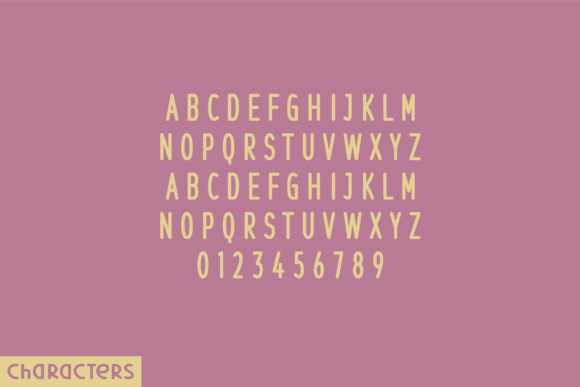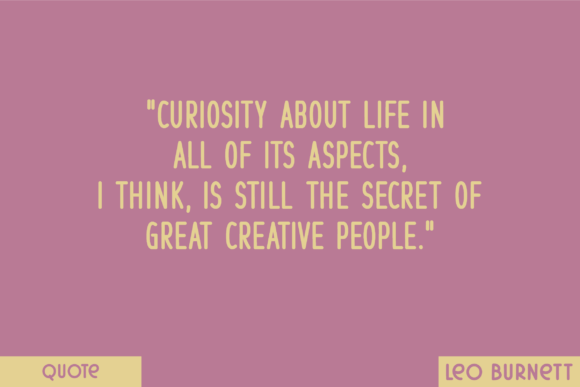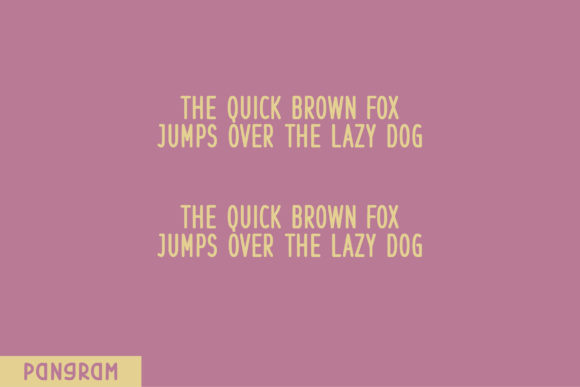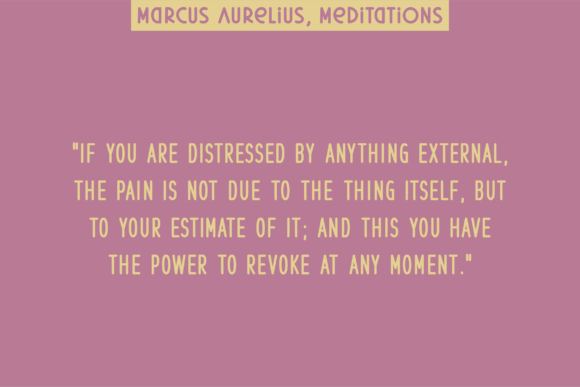
Introduction to Limonora Font
As designers, we’ve all been there – staring at a blank canvas, trying to convey the essence of a brand or idea in a few, carefully chosen words. But sometimes, the perfect font can be the difference between a bland, forgettable design and a truly show-stopping creation. That’s where the Limonora Font comes in – a beautiful, high-quality sans-serif that’s perfect for designers looking to add a touch of sophistication and personality to their work.
Whether you’re working on a craft beverage label, a boutique stationery project, or an artisanal cafe menu, the Limonora Font is a valuable design resource that’s sure to elevate your creative project. With its uniform stroke weight and tall, slender proportions, this font is ideal for narrow layouts where space is a premium, but personality is a must. And the best part? You can download it for free, giving you the freedom to experiment and push the boundaries of your design.
Key Features of Limonora Font
- High-quality, professional design ideal for creative projects and design resources.
- Designed with a unique, modern aesthetic, perfect for adding a touch of sophistication to any design project.
- Perfect for use in various creative projects, including logos, graphics, and typography, due to its versatility and flexibility.
Honest Review: Limonora Font
I recently stumbled upon the Limonora Font, and I must say it’s been a fantastic addition to my design arsenal. This high-quality font is perfect for any creative project that requires a modern and sleek look.
What works well about the Limonora Font is its versatility. It comes in a range of weights and styles, making it suitable for a variety of design needs. The font is also available for free download, which is a huge plus for designers on a budget. I appreciate that the font is offered as a free download, making it a valuable design resource for anyone working on a project.
- ✨ Suitable for a wide range of design projects, from logos to typography-based designs
- ✨ Available in multiple weights and styles for added versatility
One potential limitation of the Limonora Font is the lack of transparency options. The font is designed with a solid background, which can make it difficult to use in certain design scenarios where a transparent background is necessary. However, this is a minor drawback compared to the font’s many benefits.
Overall, I’m thoroughly impressed with the Limonora Font. Its high-quality design and versatility make it a valuable addition to any designer’s toolkit. While there are some limitations, I believe the benefits far outweigh the drawbacks.
Tips for Getting the Most Out of Limonora Font
Use Limonora Font to add a touch of elegance and sophistication to your creative project. You can pair it with a transparent background to create a clean and modern design. Experiment with different font sizes and styles to add depth and interest to your design.
Limonora Font is a versatile font that can be used in a variety of creative projects, including wedding invitations, business cards, and marketing materials. It’s also a great choice for designers who need a high-quality font with a transparent background.